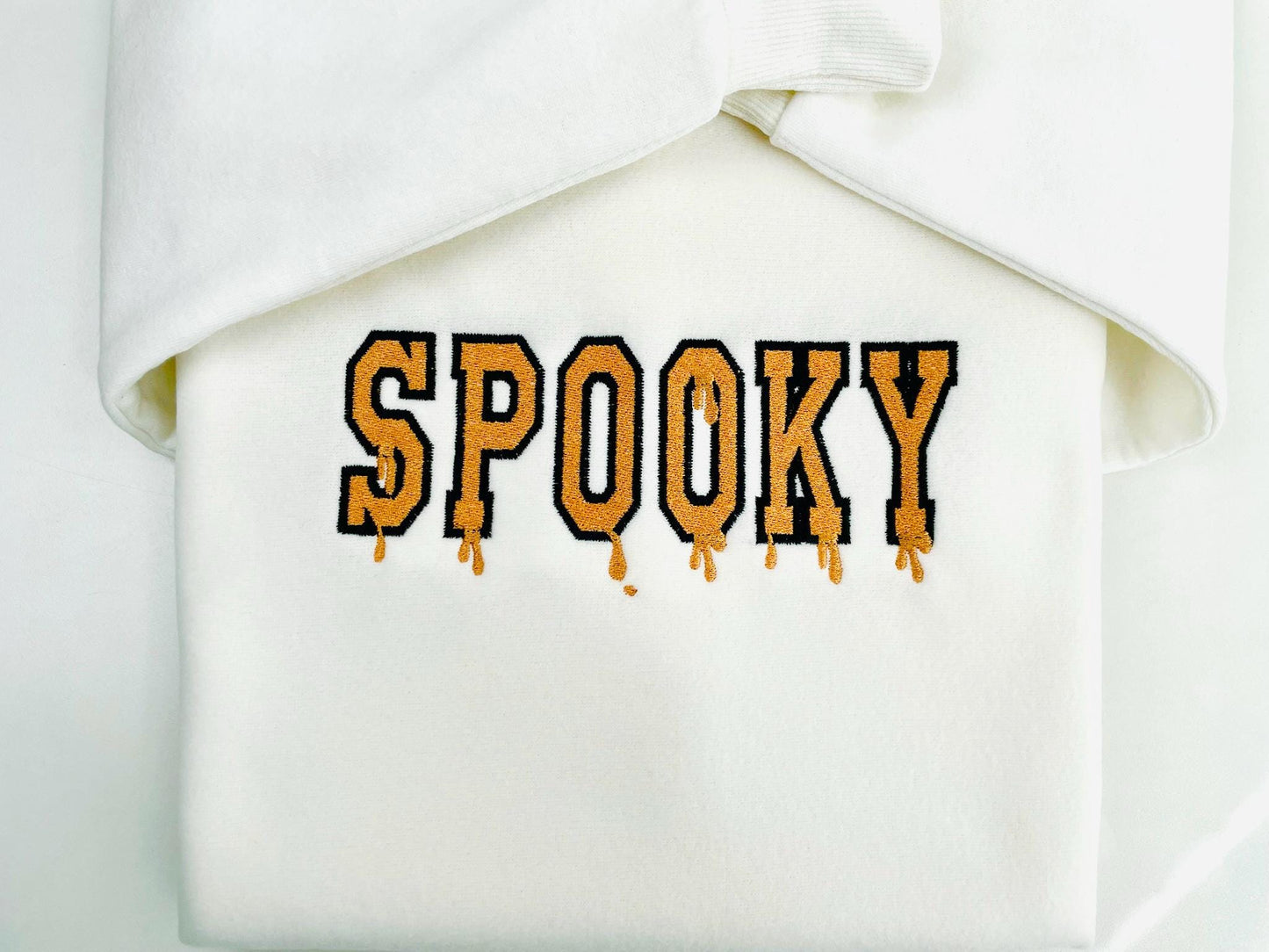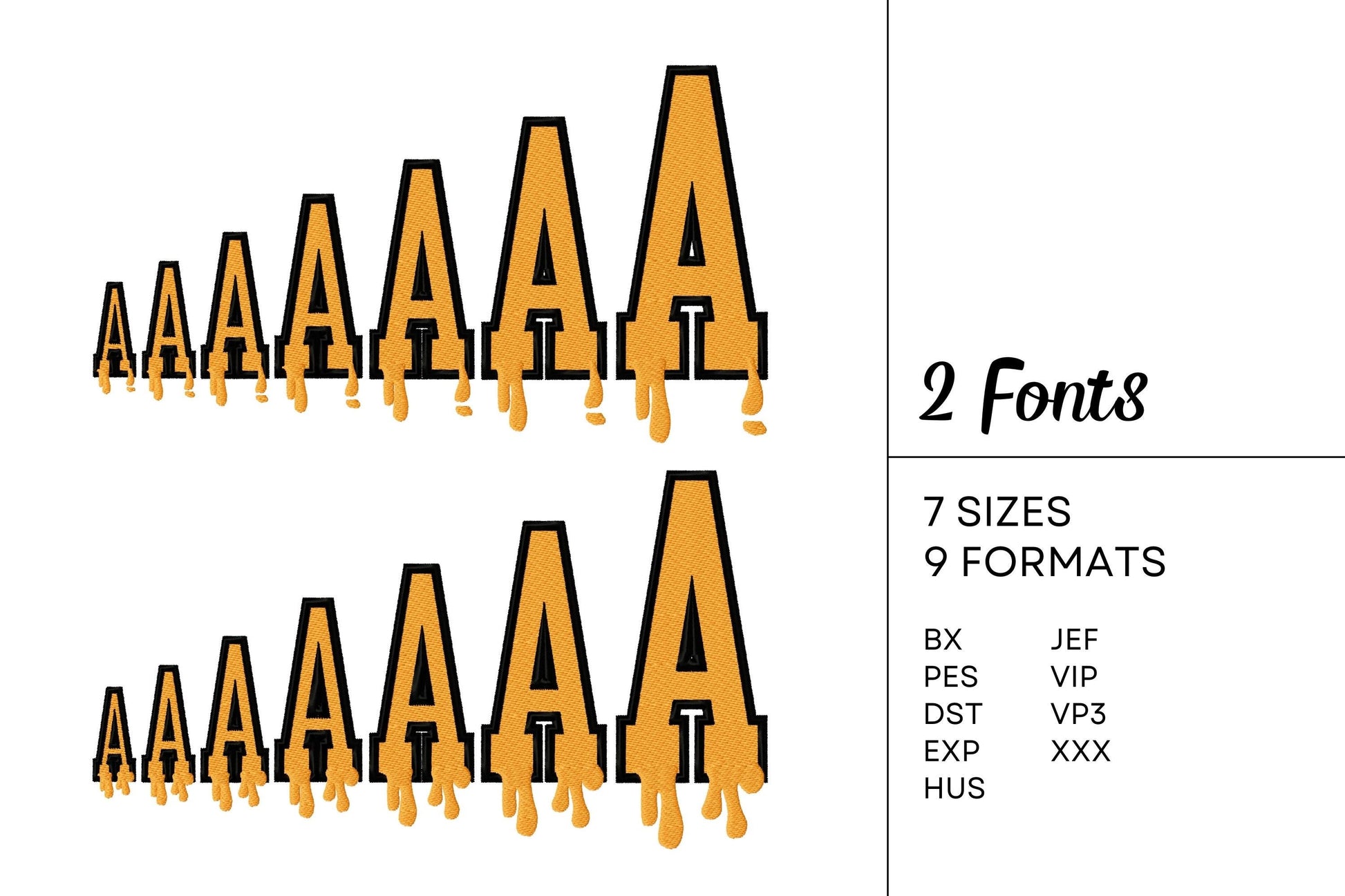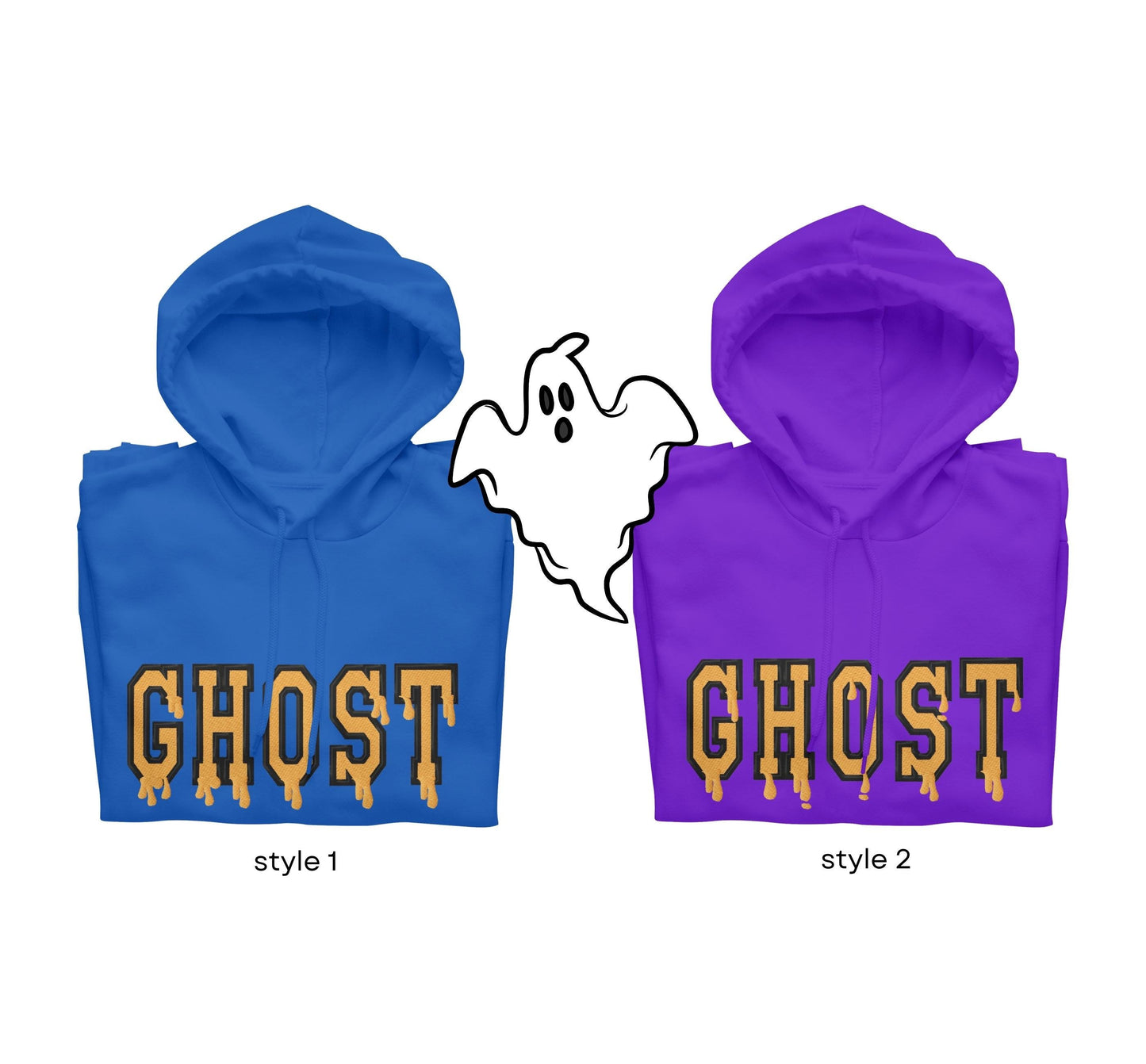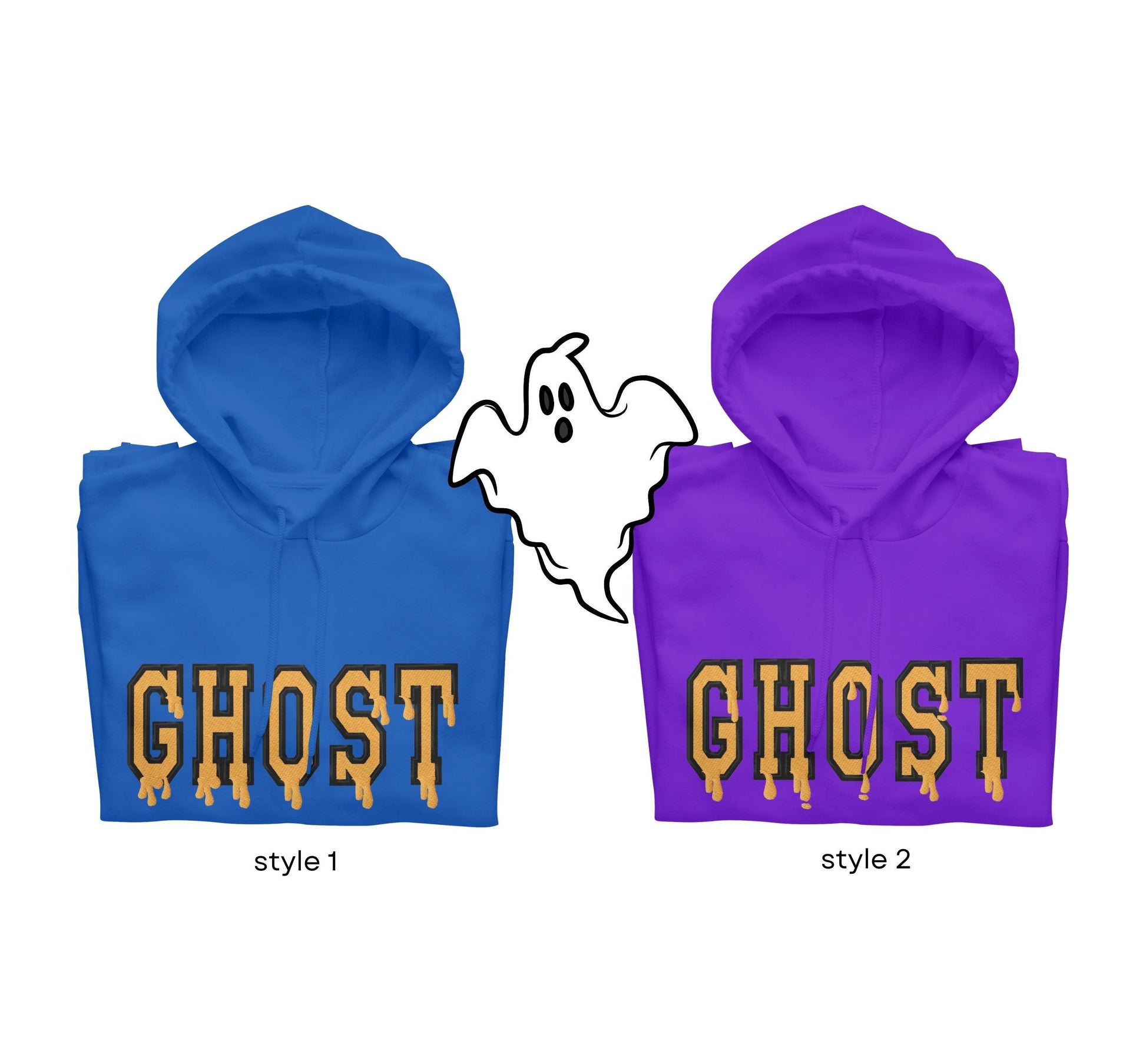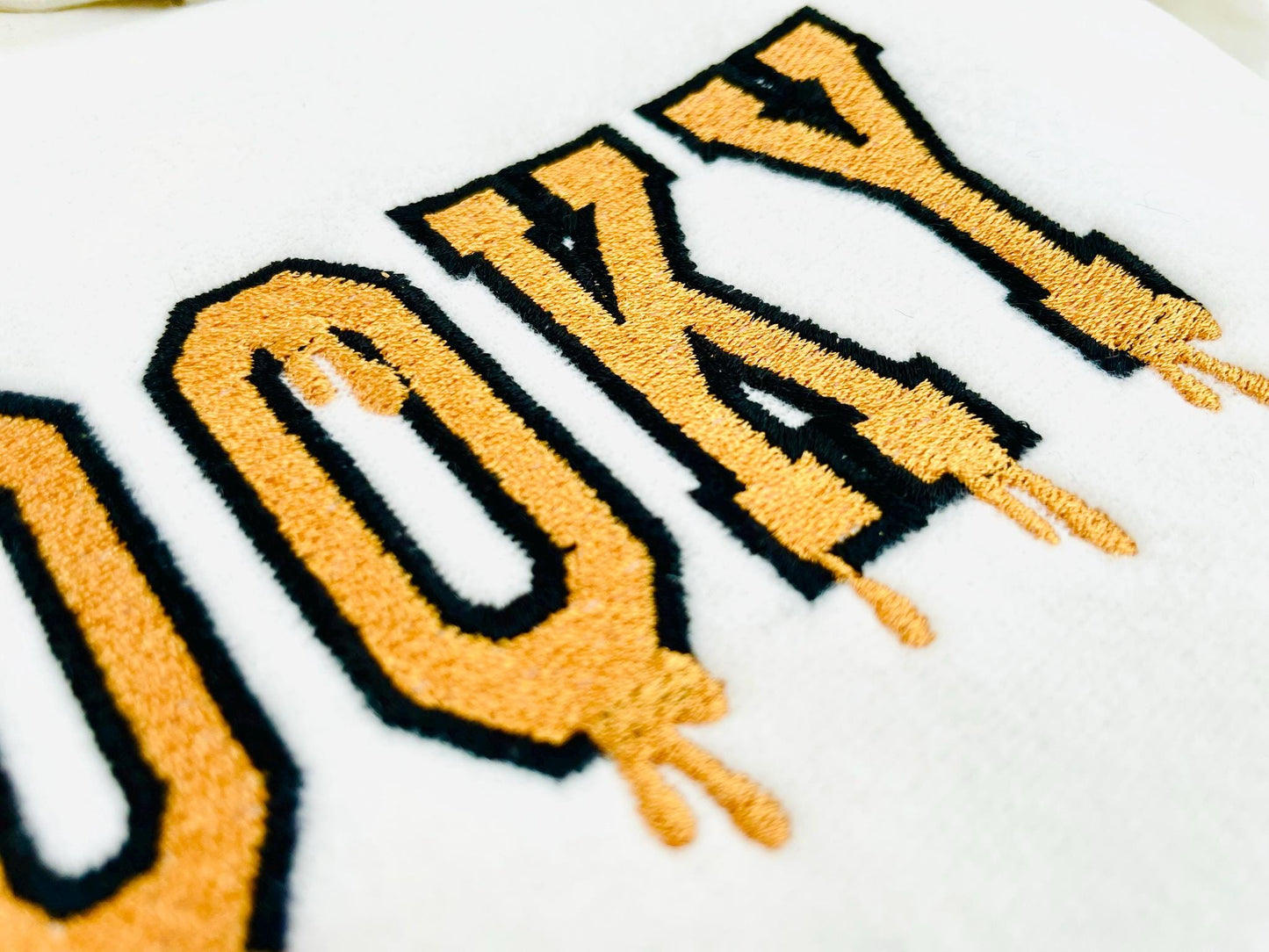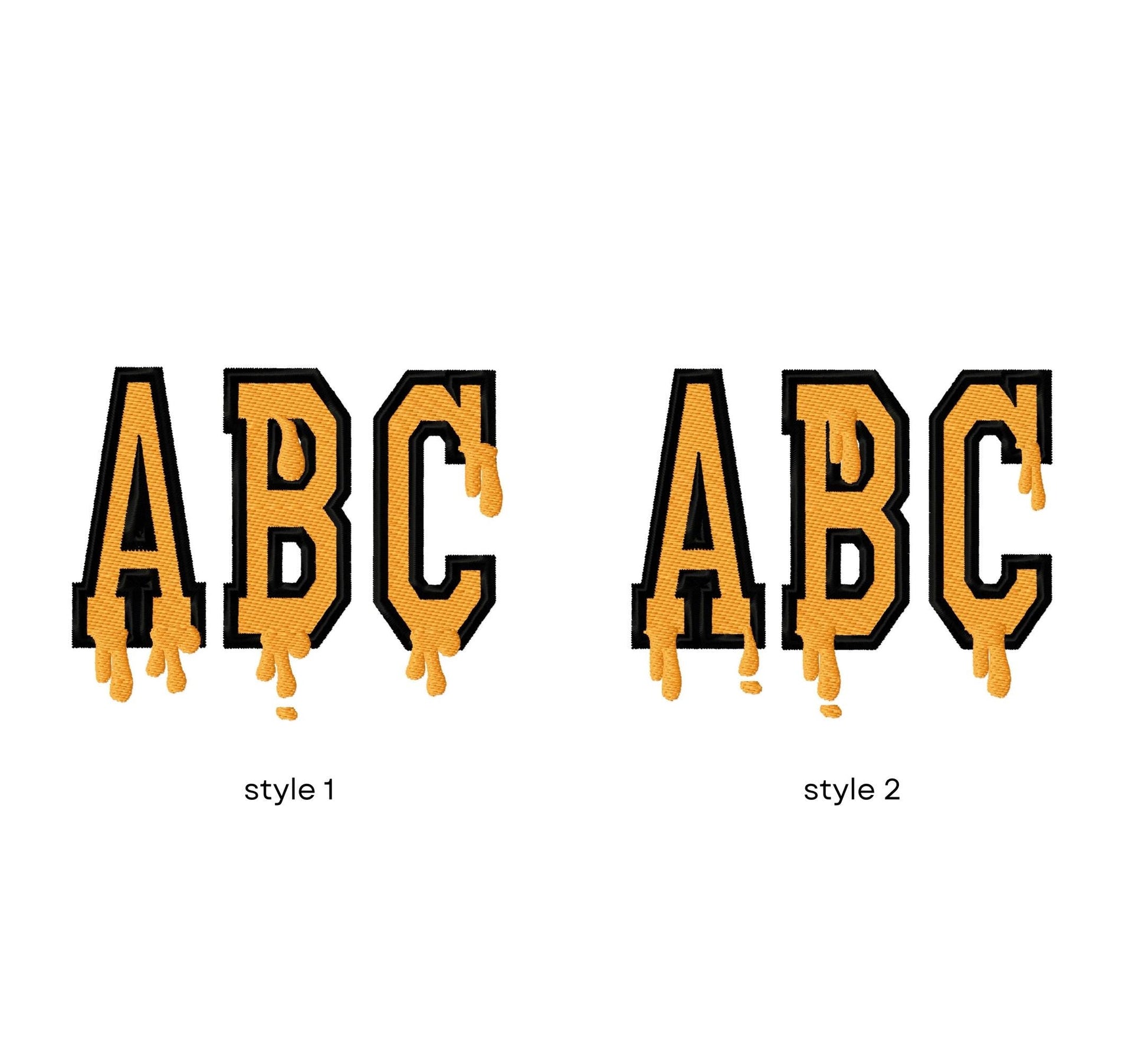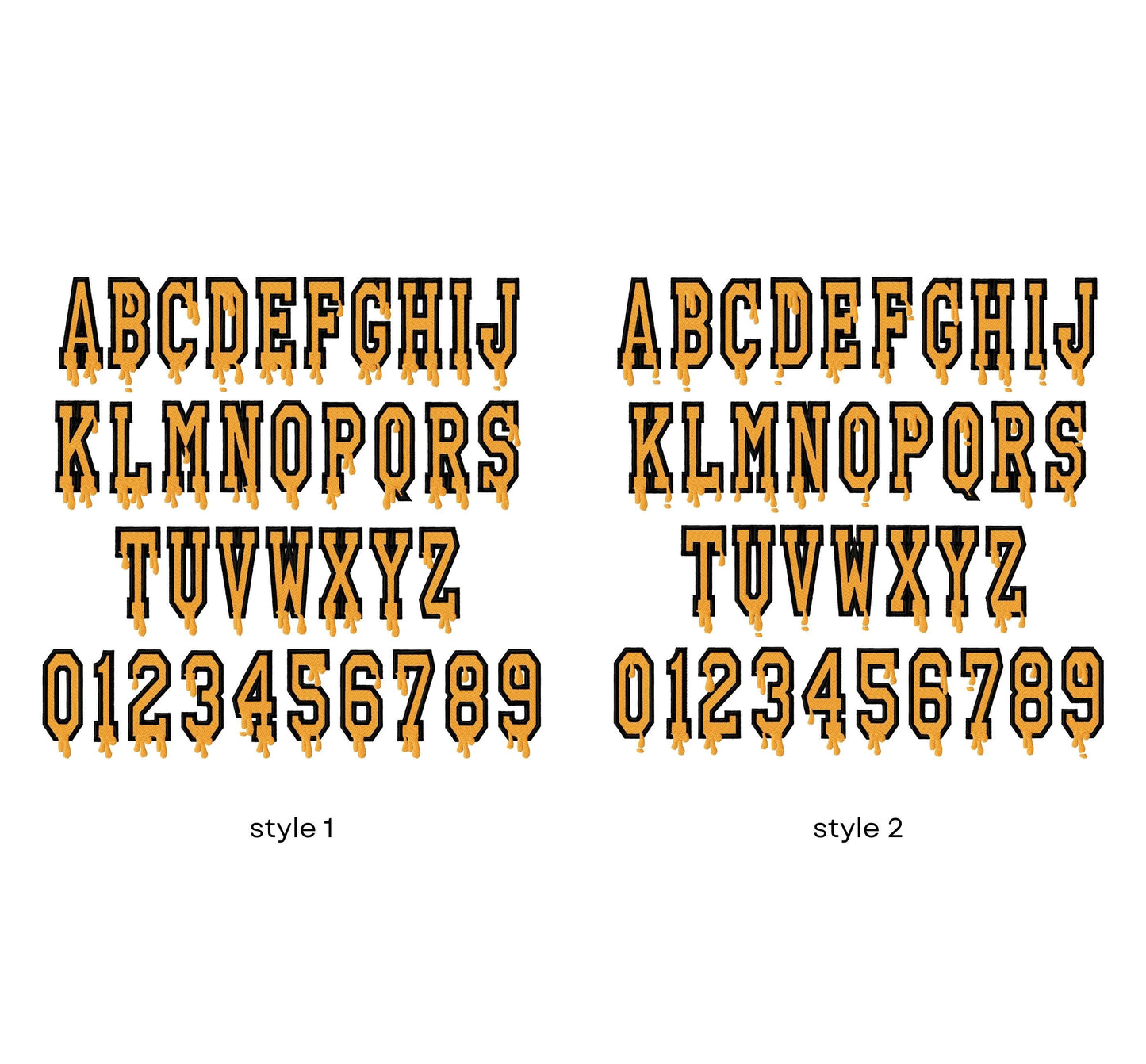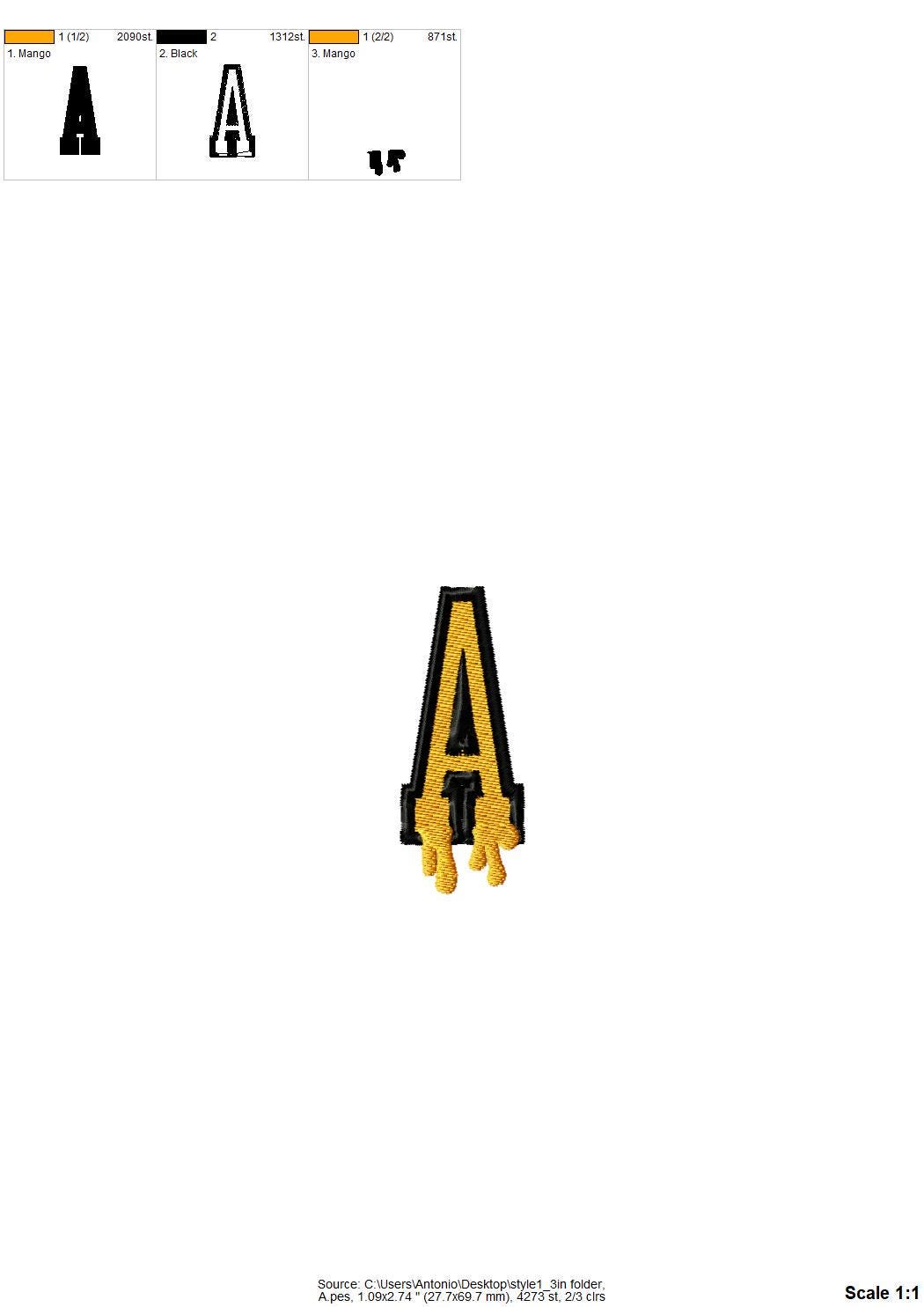
Halloween Spooky Melted Fonts 2 Styles
Or click to open the linkTwo spooky melted varsity fonts in fill stitch with an outline. Fun for Halloween shirts, treat bags and kids' names.
Two slightly different styles in matching sizes, to mix as you like. Capital letters A to Z and numbers 0 to 9 in seven sizes: 1.4, 1.8, 2.3, 3, 3.5, 4.2 and 5 inches. Drippy, melted edges give a spooky look.
- 2 melted varsity Halloween fonts
- Capital letters A-Z, numbers 0-9
- 7 sizes, 1.4 to 5 in